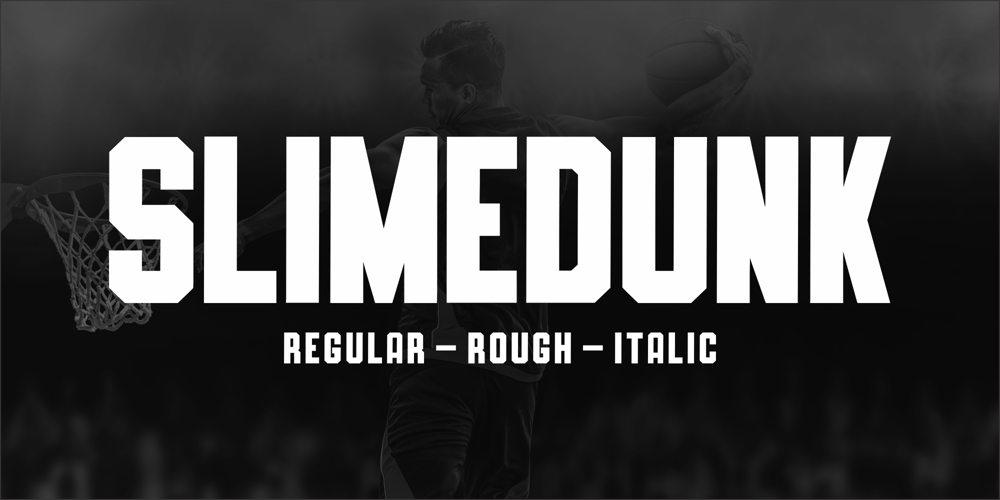
Slimedunk Font Family was designed by SU KASIH and published by Mozatype. Slimedunk contains 4 styles and family package options. SLIMEDUNK is a sans serif display font, which contains 4 styles and It features a unique and modern sans serif.This font would be perfect for E-sport Logo, film posters, games, sports, and any project. It’s also perfect for that delicate look that you want in your invitations, posterUse this font for any crafting project that requires a personalized look!What’s Included :- Works on PC & Mac- Easy to use ( Installations )- Compatibility Windows, Apple, Linux, Cricut, Silhouette, and Other cutting machinesThank you for purchasing this font. Please appreciate, if you like this.ENJOY it 🙂